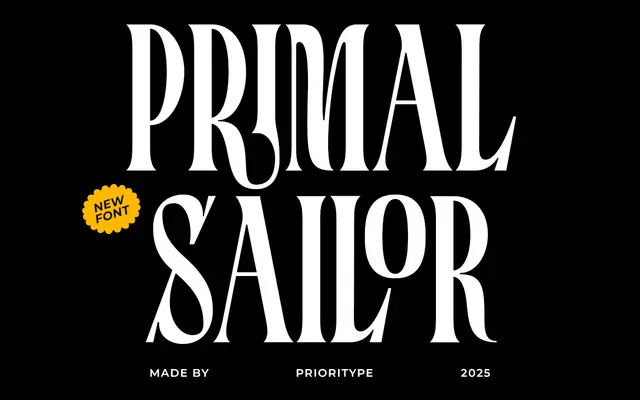
Primal Sailor
Prioritype · Prioritype Co · 2025
A single-weight condensed display serif with sharp detailing, aimed at posters, logos and headline work.
Sharp serif details and bold condensed proportions give this typeface a commanding presence at large sizes. It ships with alternates and ligatures alongside broad Latin language coverage spanning over sixty languages. A practical option for branding and print work that calls for a strong vertical rhythm without much typographic variety in weight.
A condensed, high-contrast display serif designed primarily for headlines and branding at large sizes, with sharp serif details and bold proportions placing it firmly in the display category.